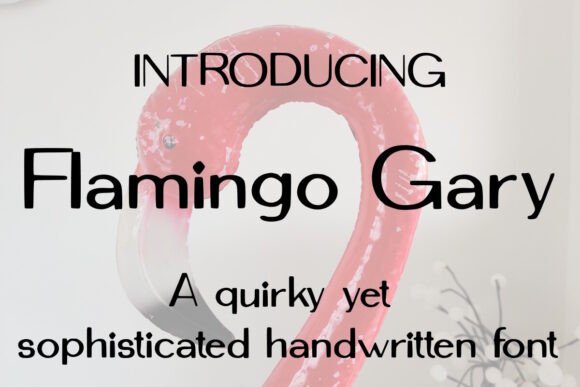
Introducing Flamingo Gary Font: Add a Touch of Personality to Your Projects
In the world of typography, fonts play a crucial role in conveying the tone and personality of a design. A well-chosen font can elevate a project from ordinary to extraordinary, making it more engaging and memorable for the audience. If you’re looking for a font that embodies a mix of fun, elegance, and a little bit of fabulous flair, look no further than Flamingo Gary Font. In this article, we’ll explore the unique features of Flamingo Gary, its inspiration, and how you can use it to add a touch of personality to your projects.
What is Flamingo Gary Font?
Flamingo Gary is a distinctive handwritten font with smooth, rounded edges and a playful yet refined style. Inspired by the one and only Gary the flamingo, this font is perfect for designers who want to add a touch of whimsy and personality to their projects. With its unique blend of fun and elegance, Flamingo Gary is sure to make your designs stand out from the crowd.
The Inspiration Behind Flamingo Gary
So, who is Gary the flamingo? Gary is an ornament that has captured the heart of many, and his charm has inspired the creation of Flamingo Gary Font. The font’s designer aimed to capture the essence of Gary’s personality – fun, playful, and a little bit fabulous – and translate it into a typographic form. The result is a font that is both elegant and whimsical, perfect for designers who want to add a touch of personality to their projects.
Key Characteristics of Flamingo Gary Font
So, what makes Flamingo Gary Font so unique? Here are some of its key characteristics:
- Smooth, rounded edges: Flamingo Gary has smooth, rounded edges that give it a soft and approachable feel.
- Playful yet refined style: The font has a playful yet refined style that makes it perfect for a wide range of design projects.
- Handwritten feel: Flamingo Gary has a handwritten feel that gives it a personal and unique touch.
- Mix of fun and elegance: The font embodies a mix of fun and elegance, making it perfect for designers who want to add a touch of personality to their projects.
How to Use Flamingo Gary Font in Your Projects
Flamingo Gary Font is versatile and can be used in a wide range of design projects, from branding and advertising to packaging and digital design. Here are some ideas on how to use Flamingo Gary in your projects:
- Branding and logos: Use Flamingo Gary as a logo font to add a touch of personality to your brand.
- Advertising and marketing materials: Use Flamingo Gary in your advertising and marketing materials, such as brochures, flyers, and posters.
- Packaging design: Use Flamingo Gary on product packaging to make it stand out on store shelves.
- Digital design: Use Flamingo Gary in your digital designs, such as website headers, social media graphics, and email newsletters.
Tips for Using Flamingo Gary Font Effectively
Here are some tips for using Flamingo Gary Font effectively in your projects:
- Use it sparingly: Use Flamingo Gary sparingly to avoid overwhelming the design.
- Pair it with other fonts: Pair Flamingo Gary with other fonts to create a unique and interesting typographic combination.
- Experiment with colors: Experiment with different colors to find the perfect combination that works with Flamingo Gary.
- Keep it legible: Make sure to keep the font legible, especially when using it in smaller sizes.
The Benefits of Using Flamingo Gary Font
So, what are the benefits of using Flamingo Gary Font in your projects? Here are a few:
- Adds personality: Flamingo Gary adds a touch of personality to your designs, making them more engaging and memorable.
- Unique and distinctive: Flamingo Gary is a unique and distinctive font that will make your designs stand out from the crowd.
- Versatile: Flamingo Gary is versatile and can be used in a wide range of design projects.
- Elegant and whimsical: The font has an elegant and whimsical feel that makes it perfect for designers who want to add a touch of fun and elegance to their projects.
In conclusion, Flamingo Gary Font is a unique and distinctive handwritten font that embodies a mix of fun, elegance, and a little bit of fabulous flair. With its smooth, rounded edges and playful yet refined style, Flamingo Gary is perfect for designers who want to add a touch of personality to their projects. Whether you’re looking to make a statement or keep things effortlessly cool, Flamingo Gary is sure to make your designs stand out. So, why not give Flamingo Gary a try and see how it can elevate your designs to the next level?